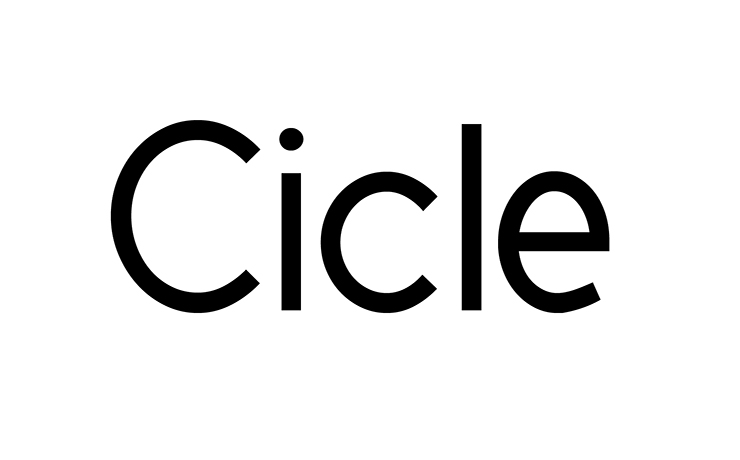
Cicle Font is a simple sans serif font that looks contemporary with an amazing feeling. This font is built specifically for logos, headlines, titles, and posters.
La Tipomatika took the charge of designing it and releasing it for the first time.
And various font designers take it as an inspiration to create new fonts. It has a decent structure with proper filling space, width, height, and corners.
Either way, you will find it perfect without any mistakes. Also, it contains beautiful letters in alphabetical order. They perform well for both display and printing.
With this font help, you can easily create book covers, news heading, newspapers, brand logos, printing on cards, game graphics, unique emblems, and so on.
This remarkable font has come in seven different variants along with True Type file format. These styles have 207 unique glyphs and 226 characters.